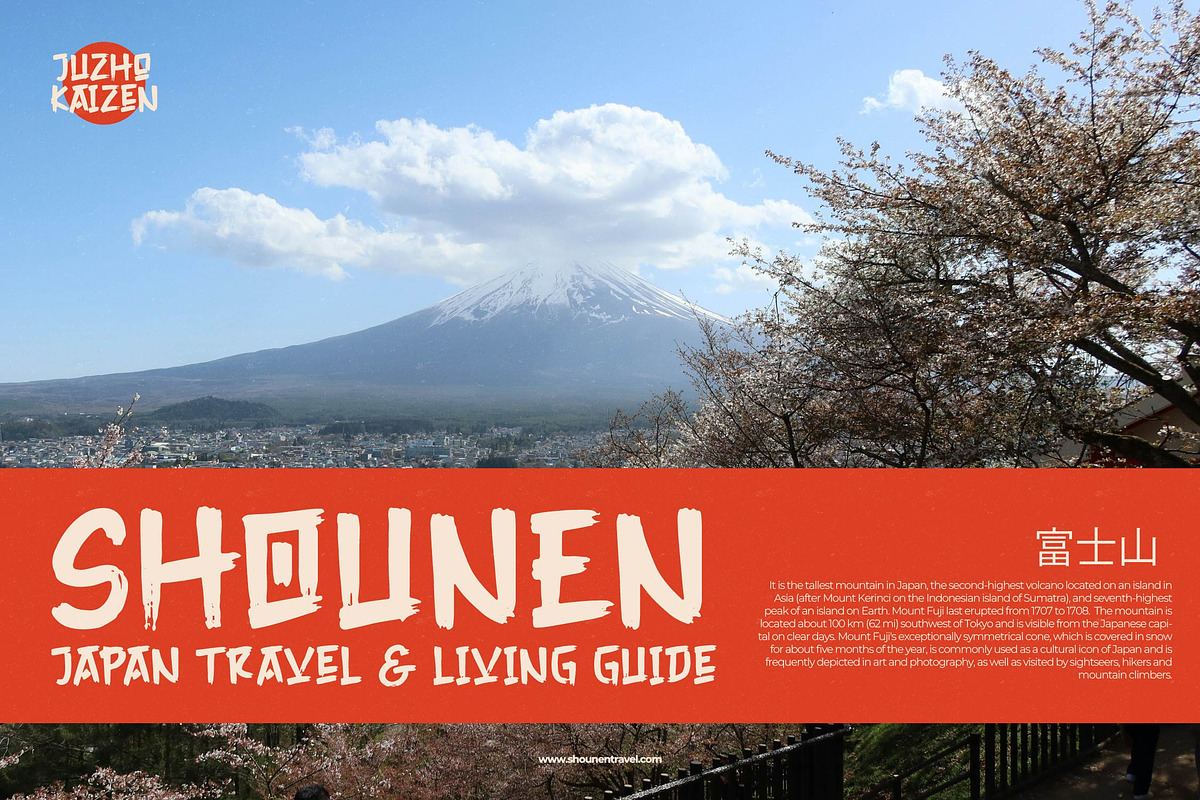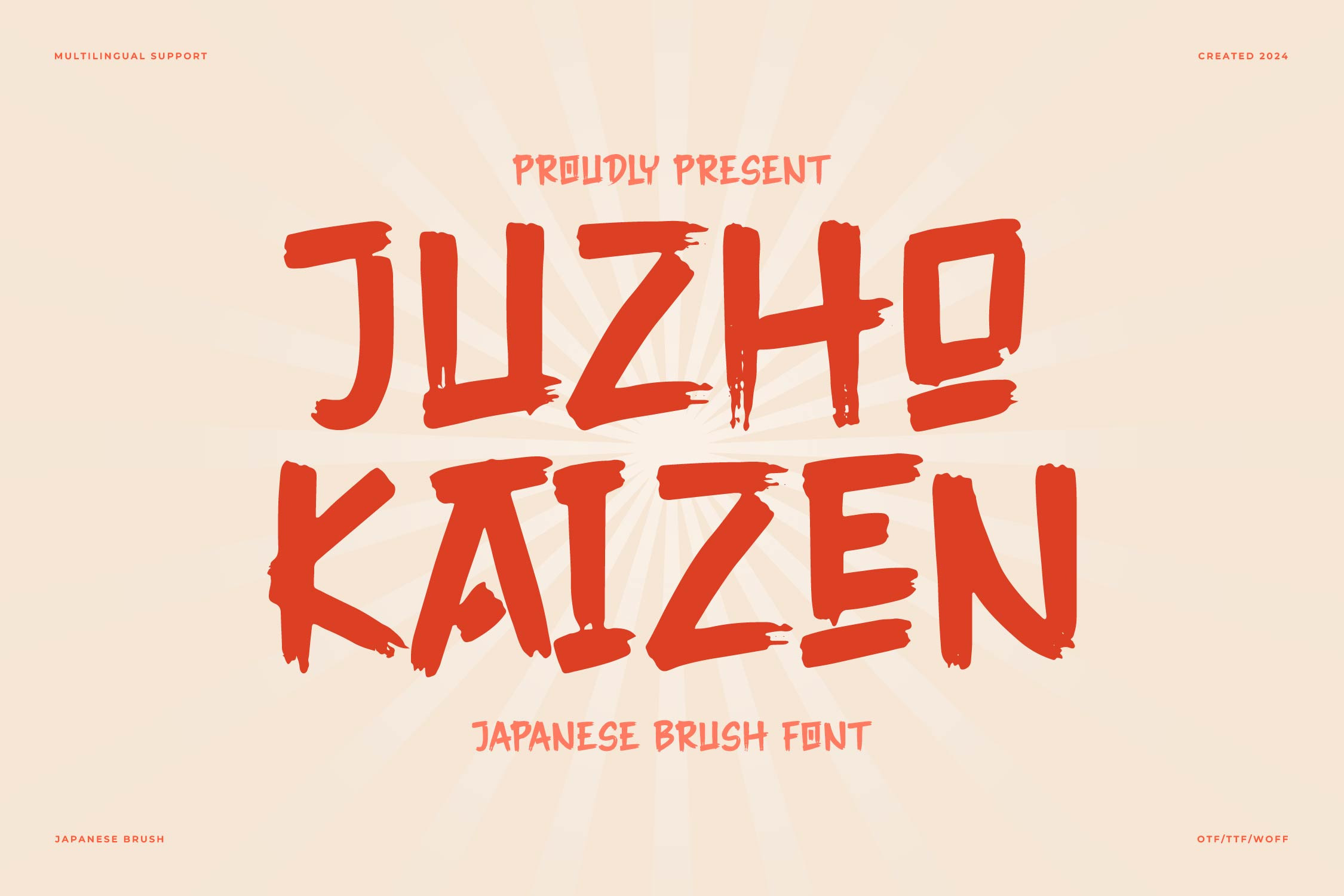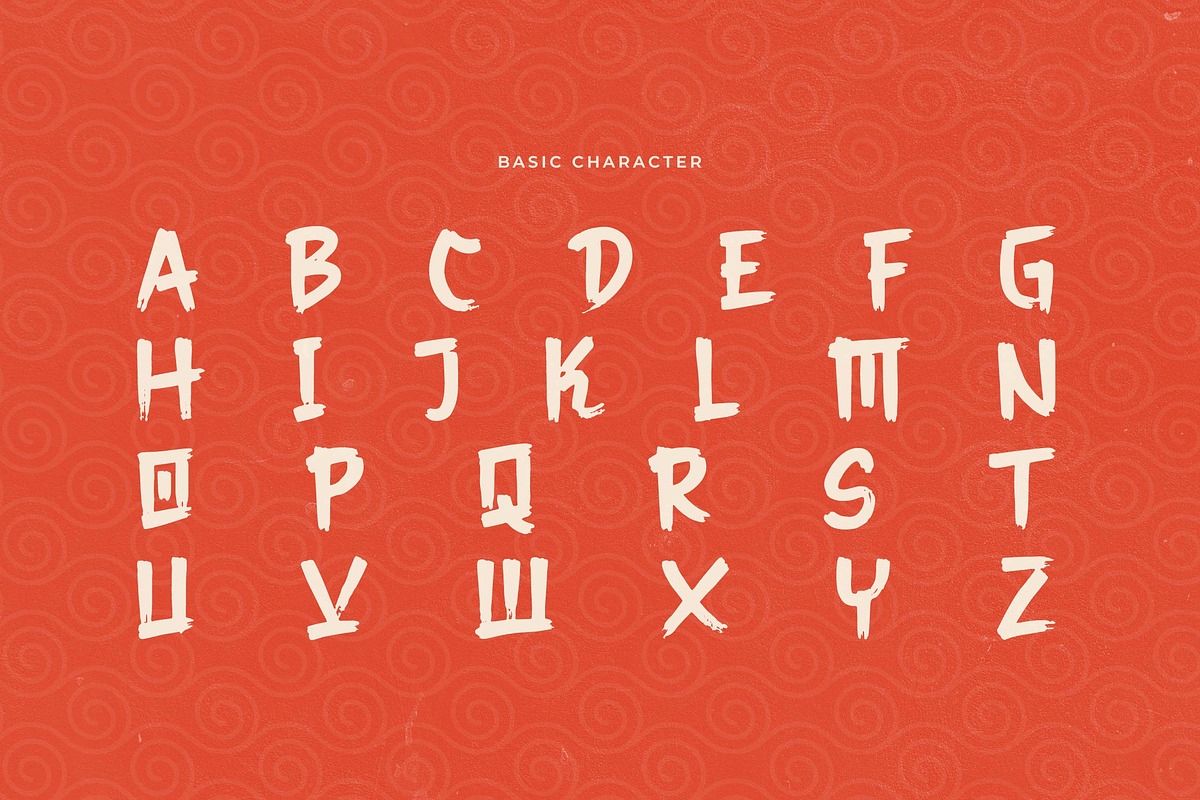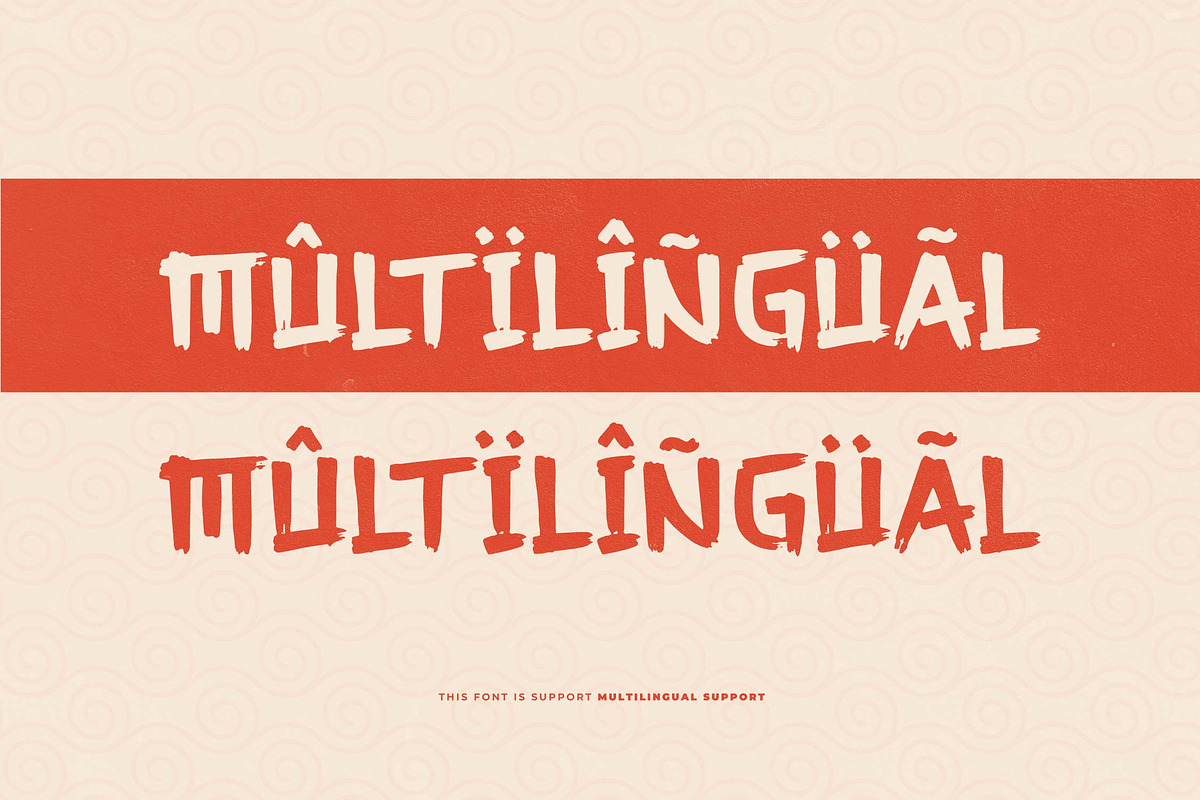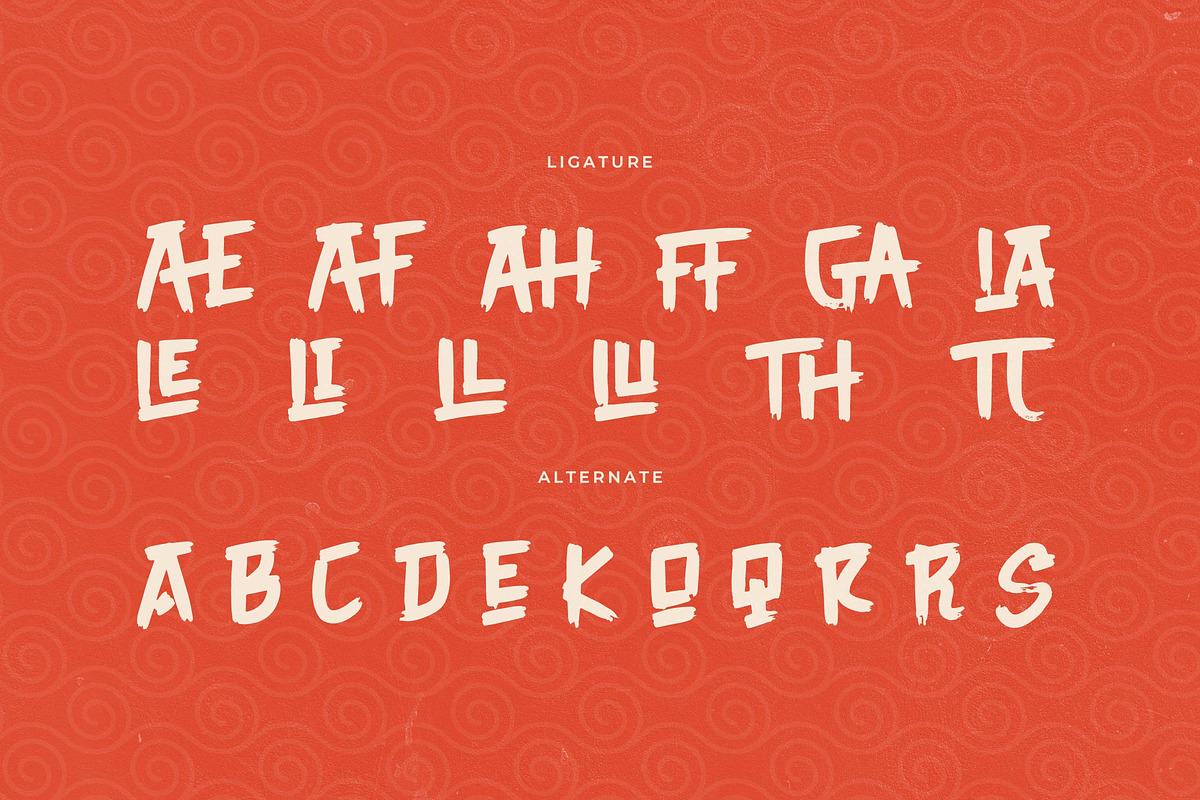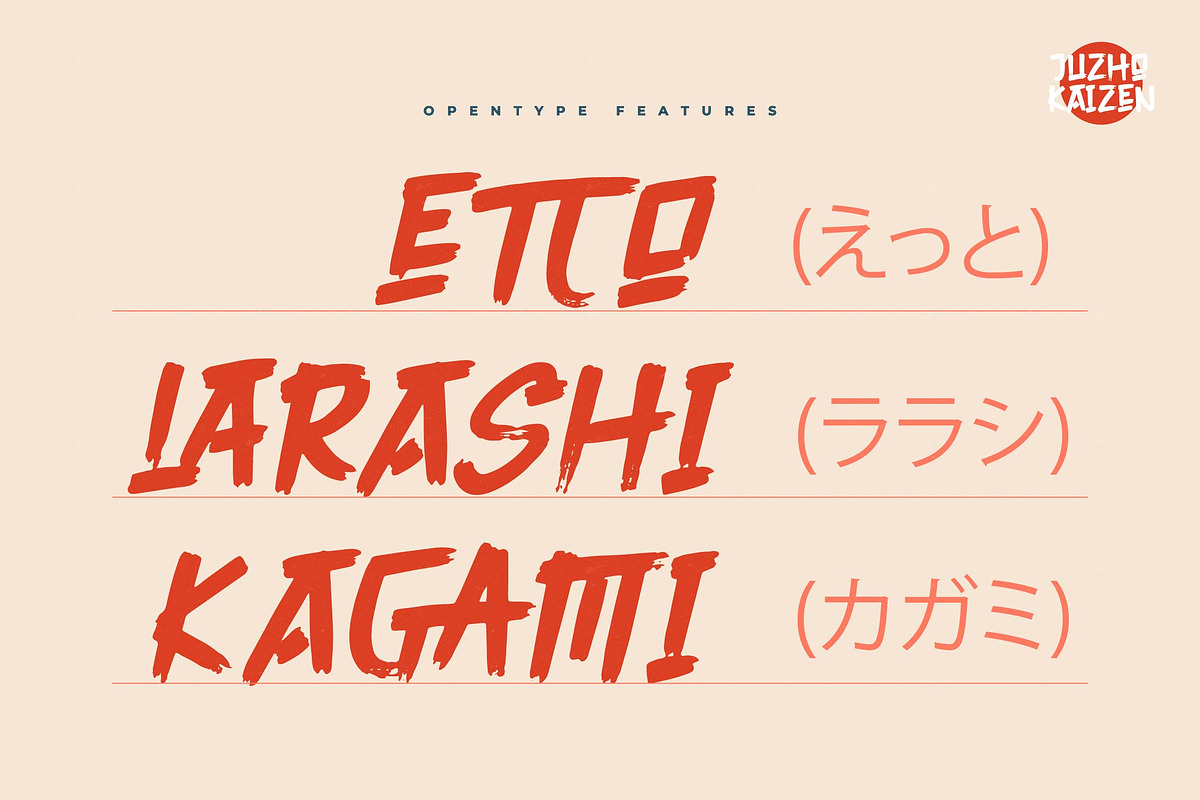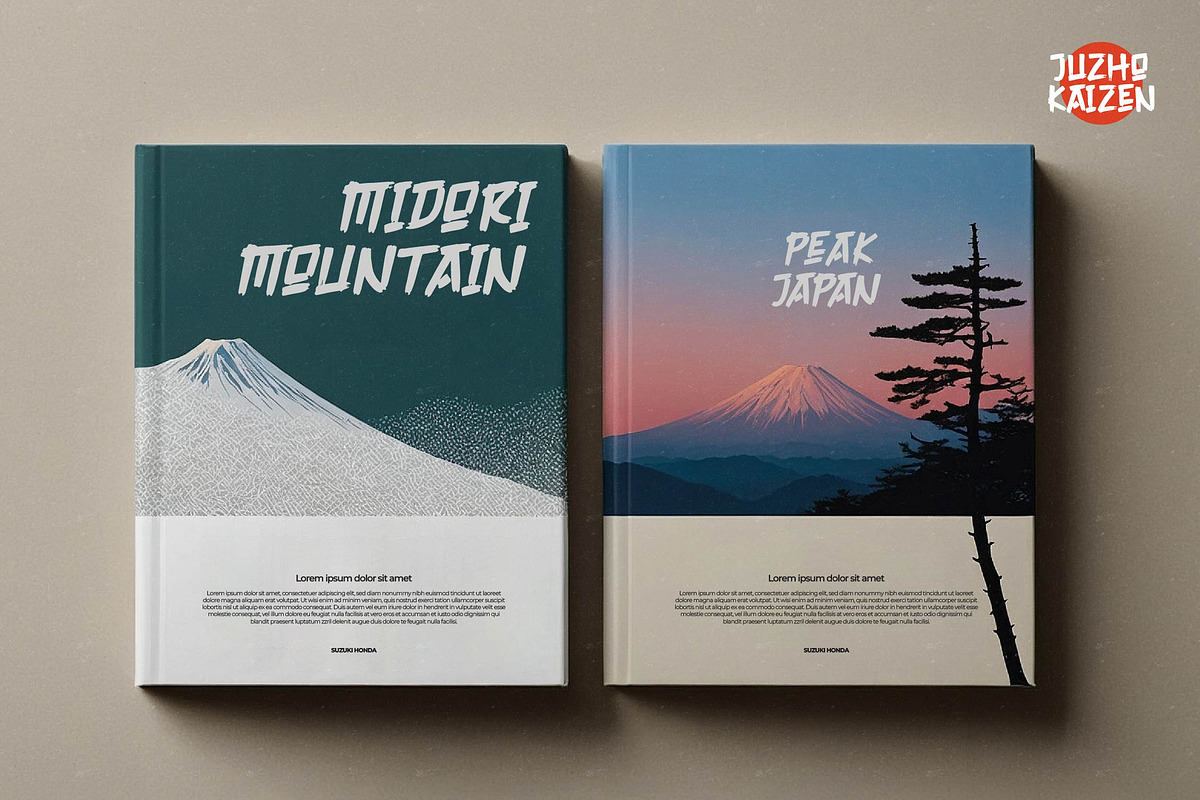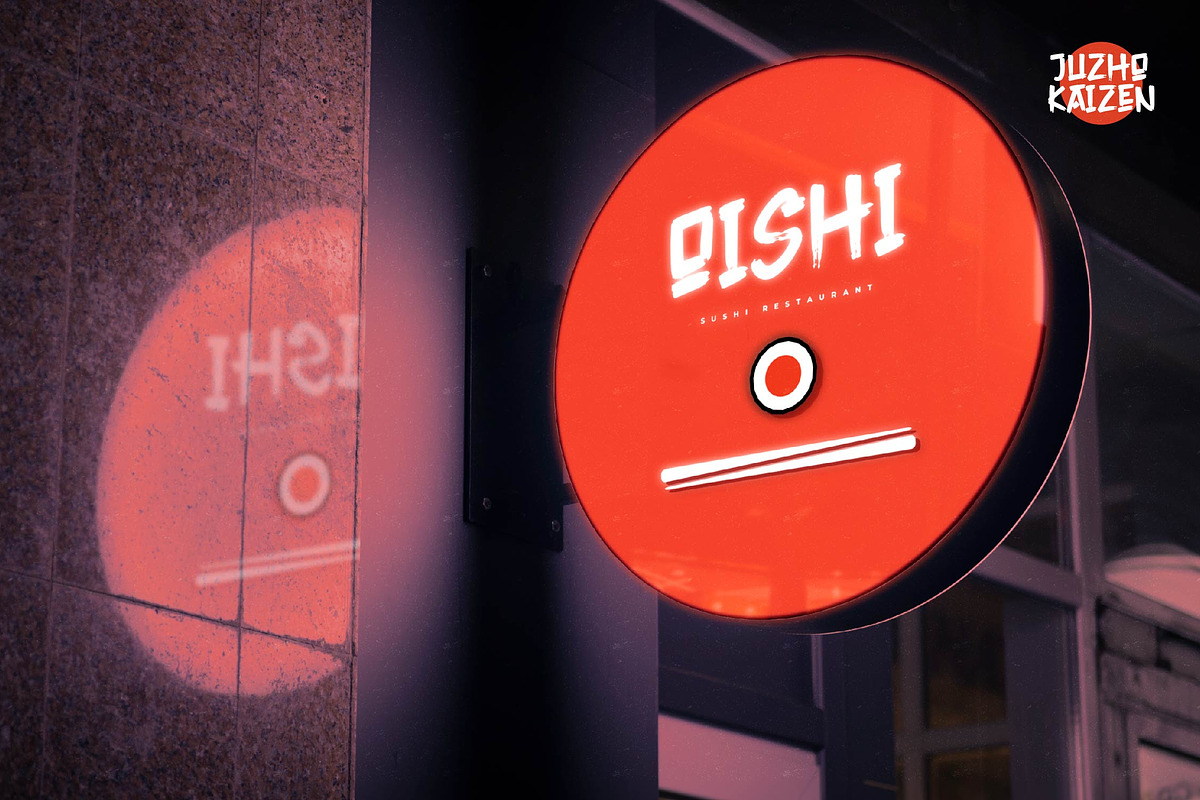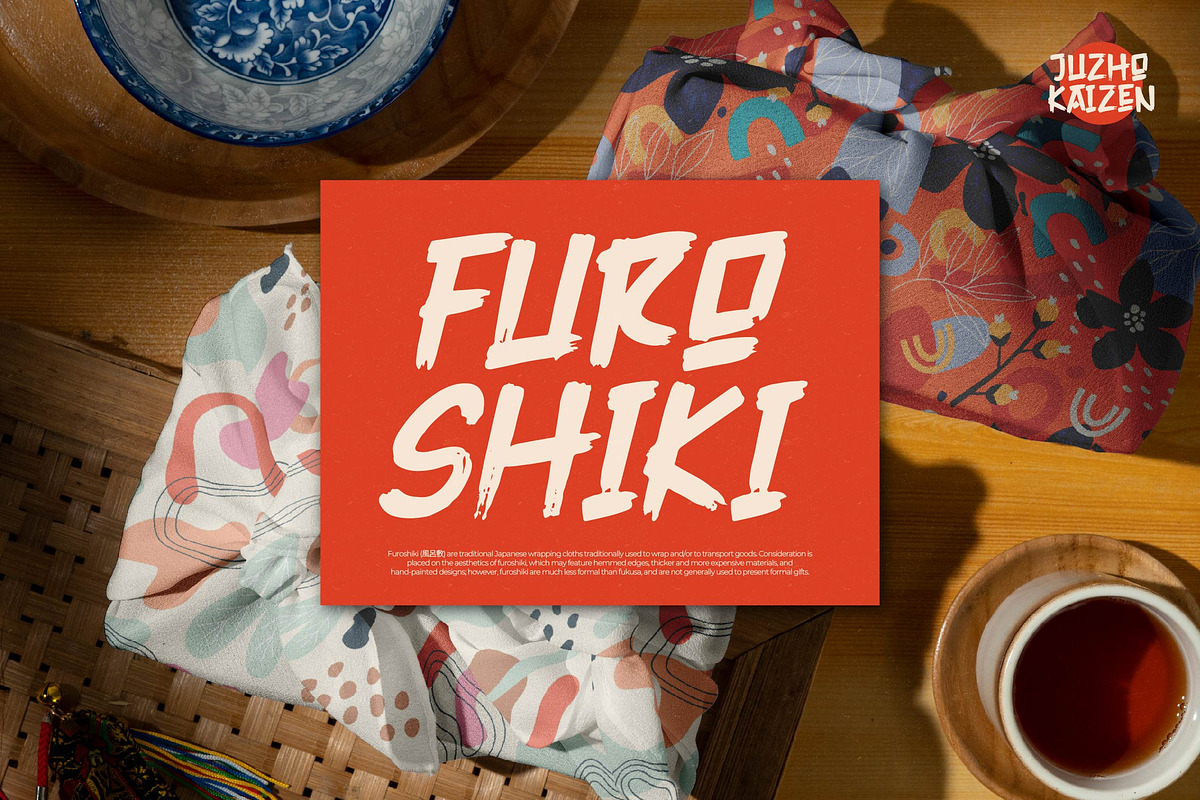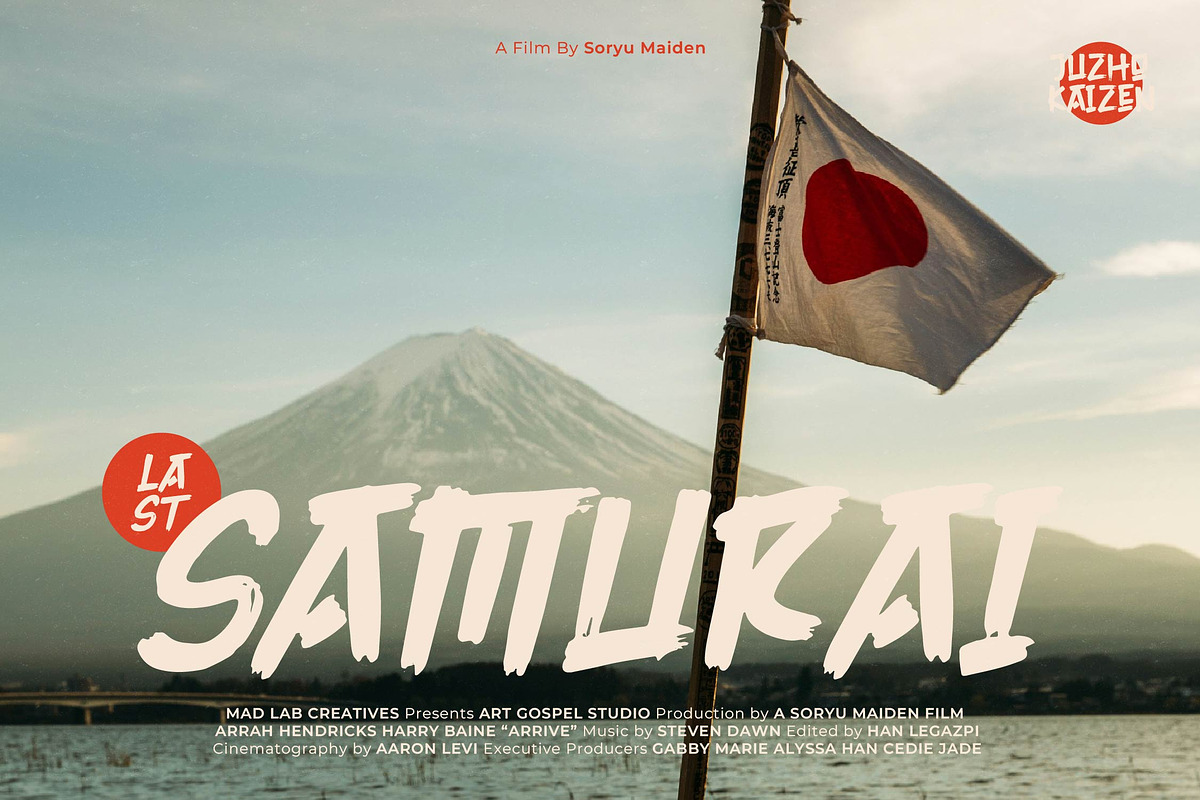
Juzho Kaizen | Japanese Brush Font
Juzho Kaizen | Japanese Brush Font, from Denustudios, suitable for any projects such as: logos, branding projects, homeware designs, product packaging, mugs, quotes, posters, shopping bags, t-shirts, book covers, name card, invitation cards, greeting cards, label, photography, watermark, special events, and all your other lovely projects that need a Japanese Brush Font taste.